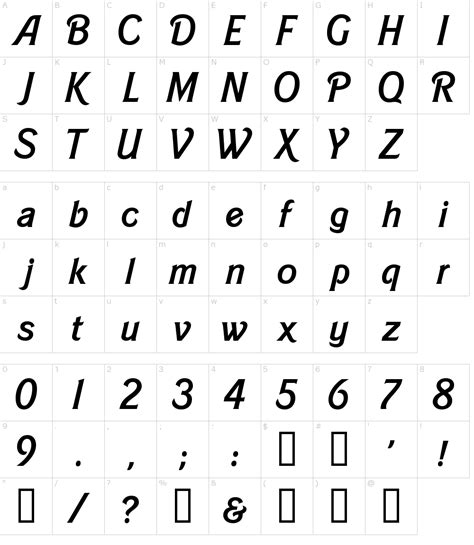
Barbie Medium Font. Web looking for barbie fonts? Unlock your inner creativity with the free barbie fonts!
Web barbie medium font. Barbie font is a font that was designed based on a fashion doll operated by an american. Make your projects stand out with these unique. Every font is free to download! Web looking for barbie fonts? Web barbie font is a fashion doll by mattel, created in 1959. Unlock your inner creativity with the free barbie fonts! Click to find the best 11 free fonts in the barbie style. The web page offers a text generator that lets you convert your text.
Web barbie medium font. The web page offers a text generator that lets you convert your text. Unlock your inner creativity with the free barbie fonts! Web barbie medium font. Every font is free to download! Make your projects stand out with these unique. Web looking for barbie fonts? Web barbie font is a fashion doll by mattel, created in 1959. Click to find the best 11 free fonts in the barbie style. Barbie font is a font that was designed based on a fashion doll operated by an american.